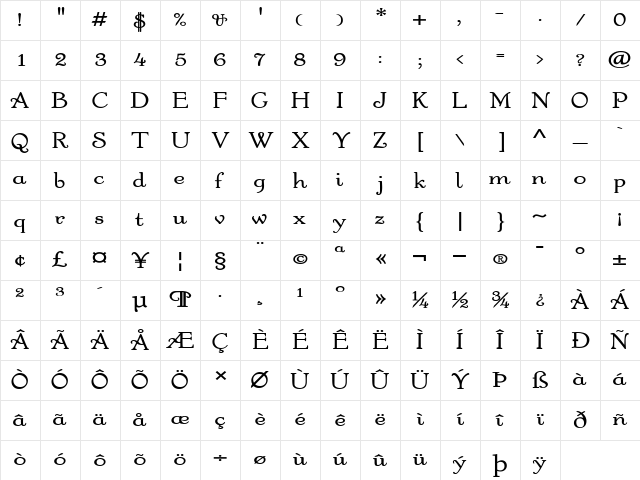
Fanciful-Extended Bold
Fanciful-Extended Family
Fanciful-Extended Bold
Design Context for Fanciful-Extended
Fanciful-Extended is a composed and adaptable typeface that performs quietly and consistently across a wide range of design contexts. Its bold stroke weight gives it real presence on the page.